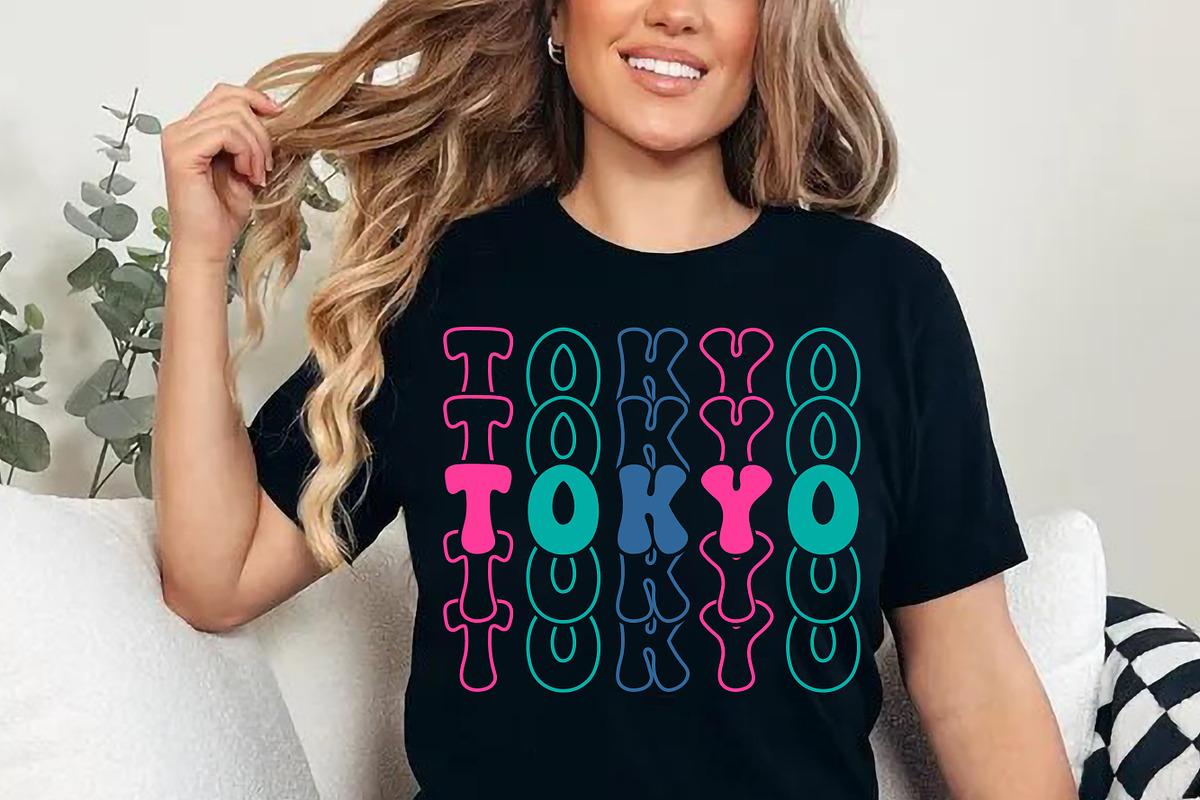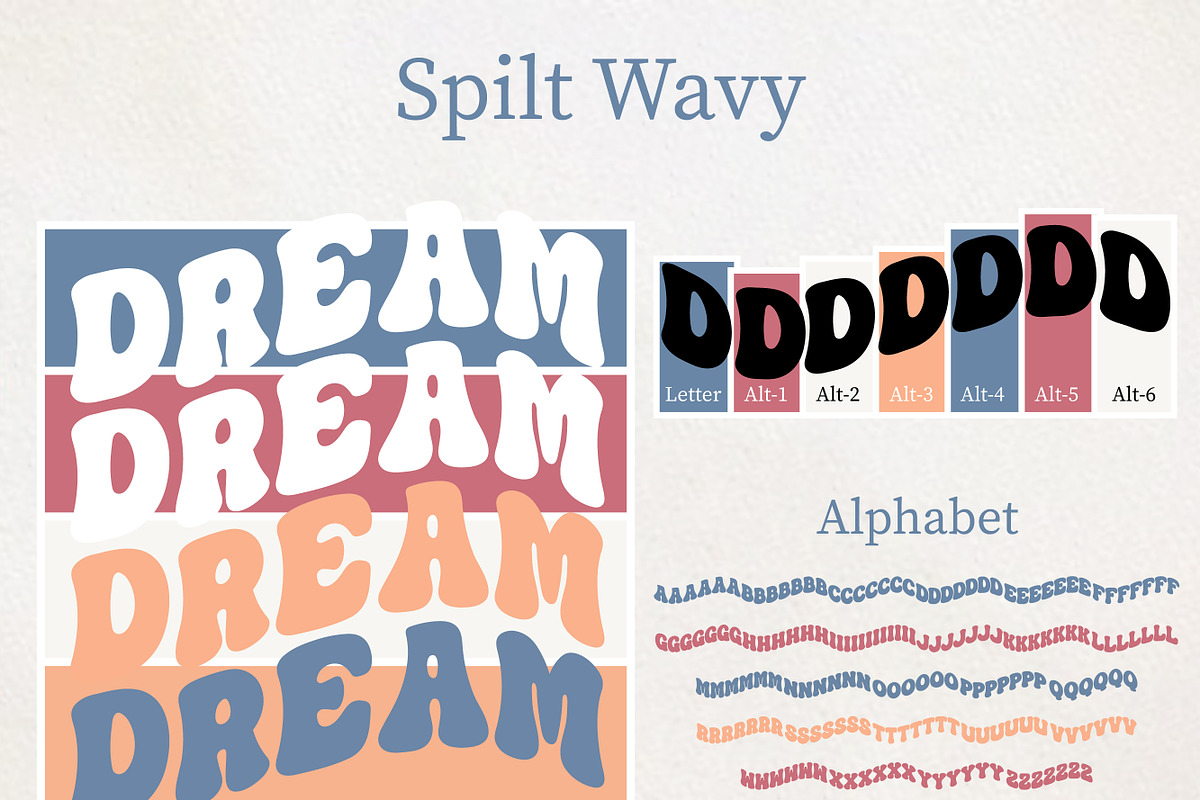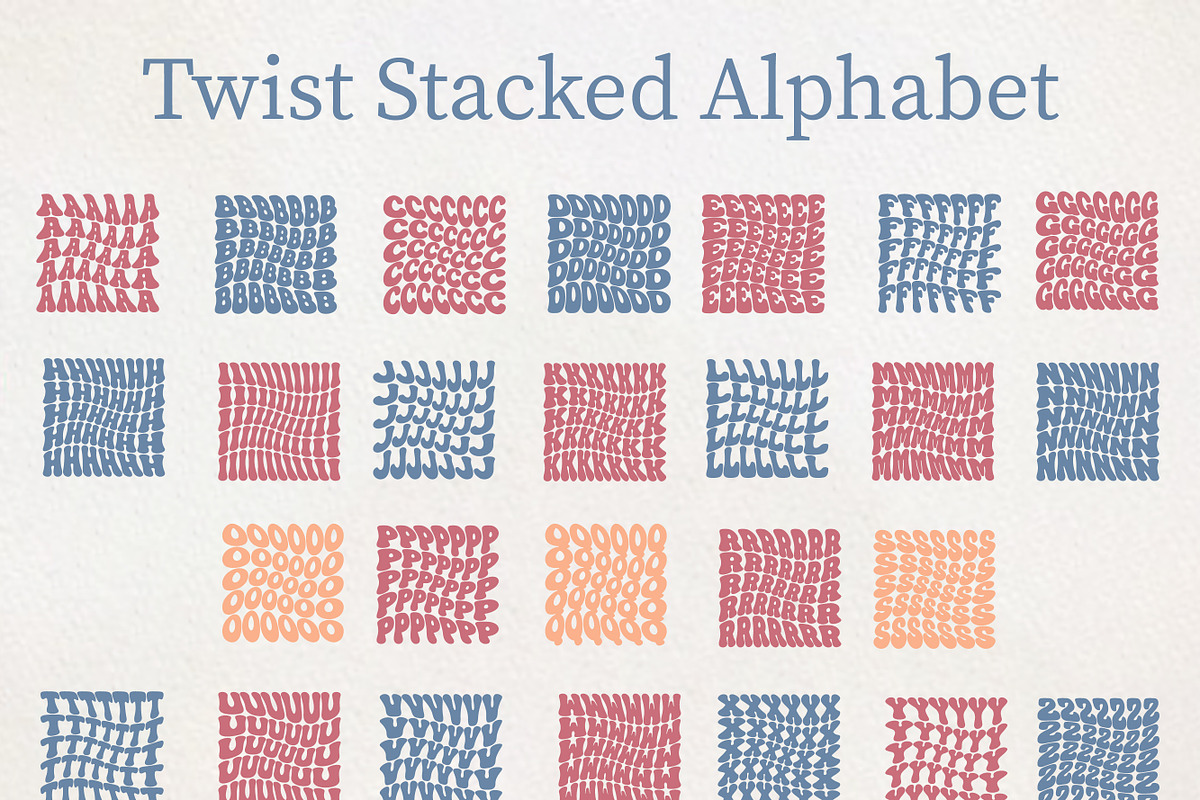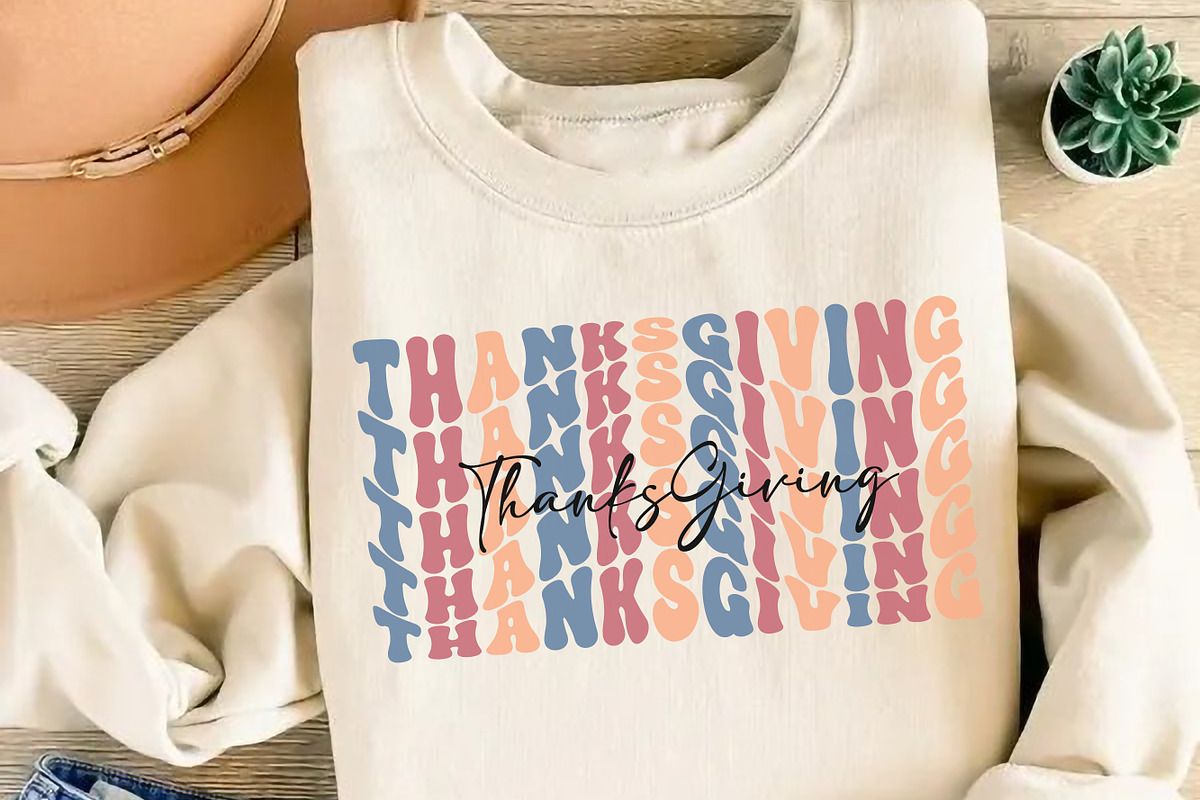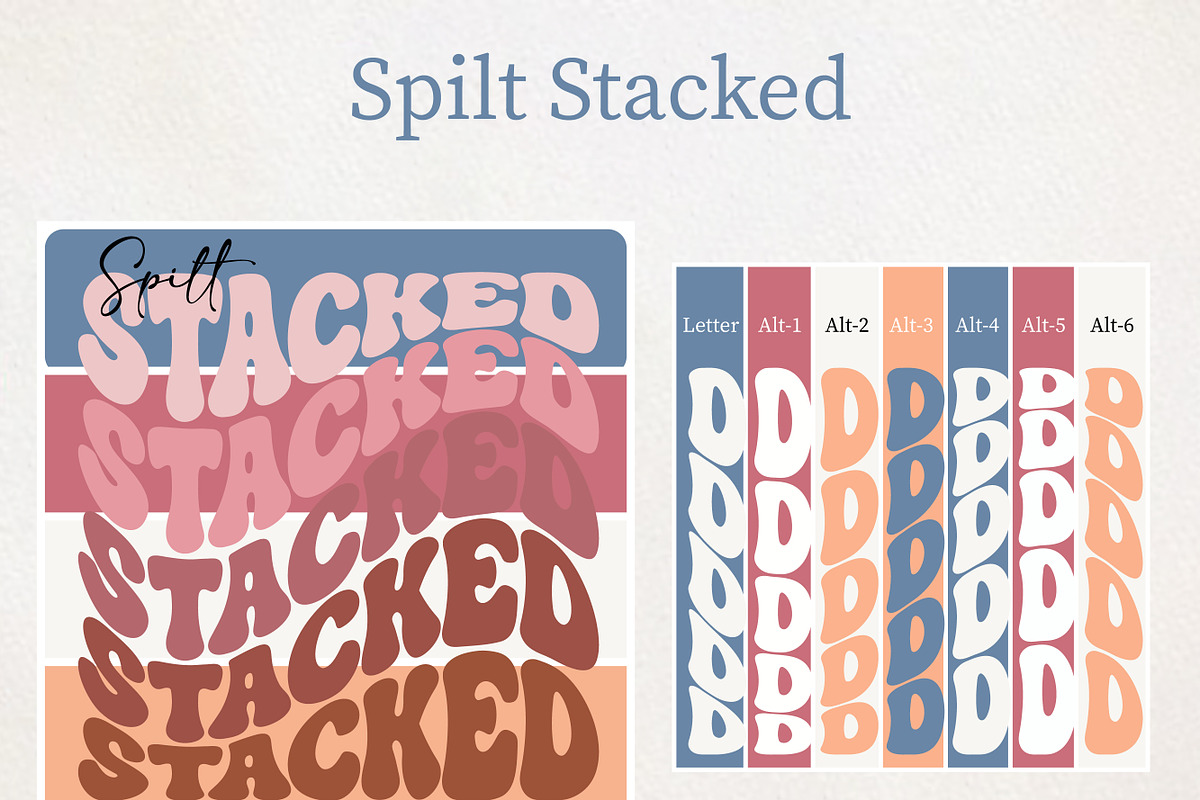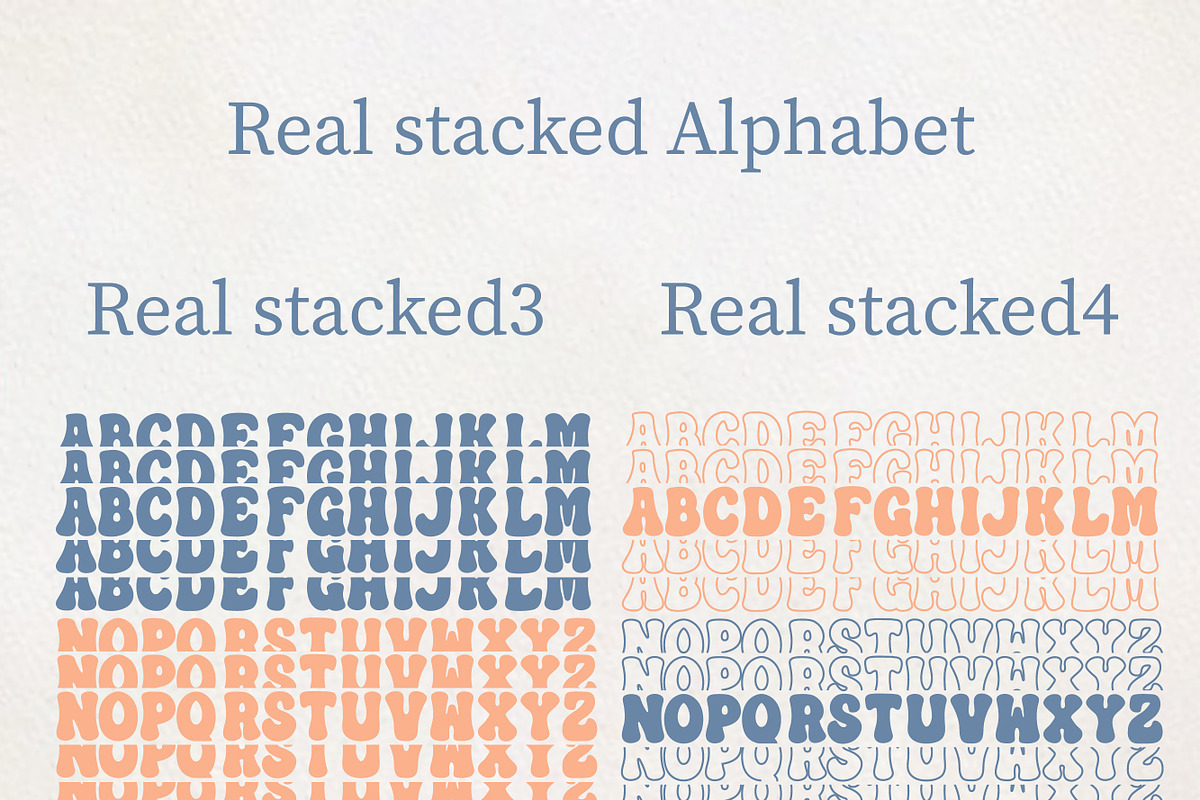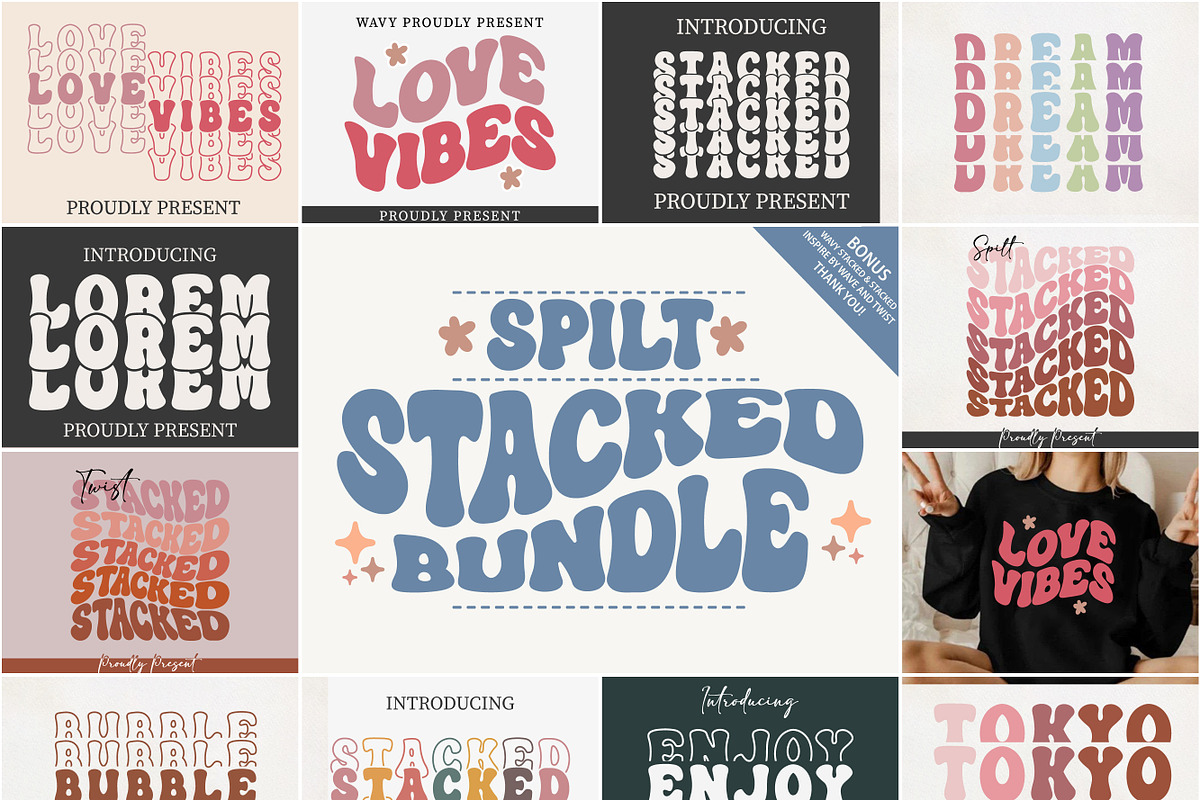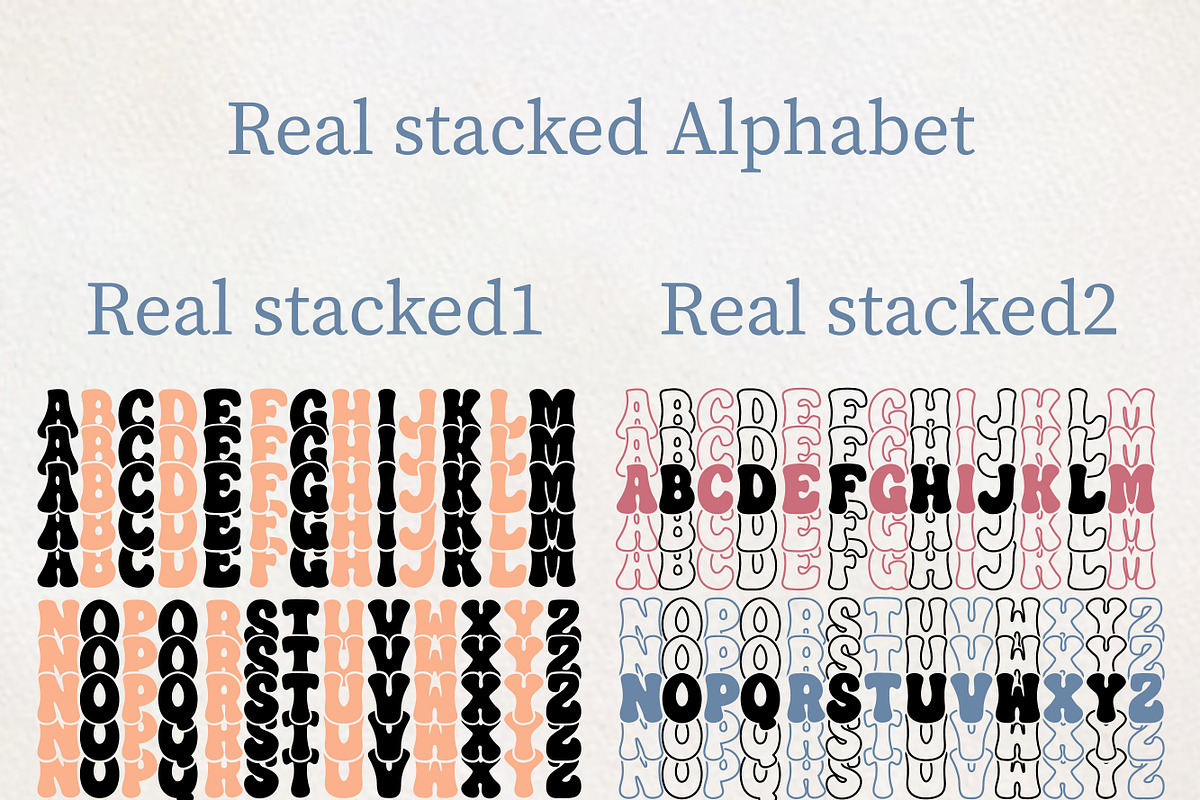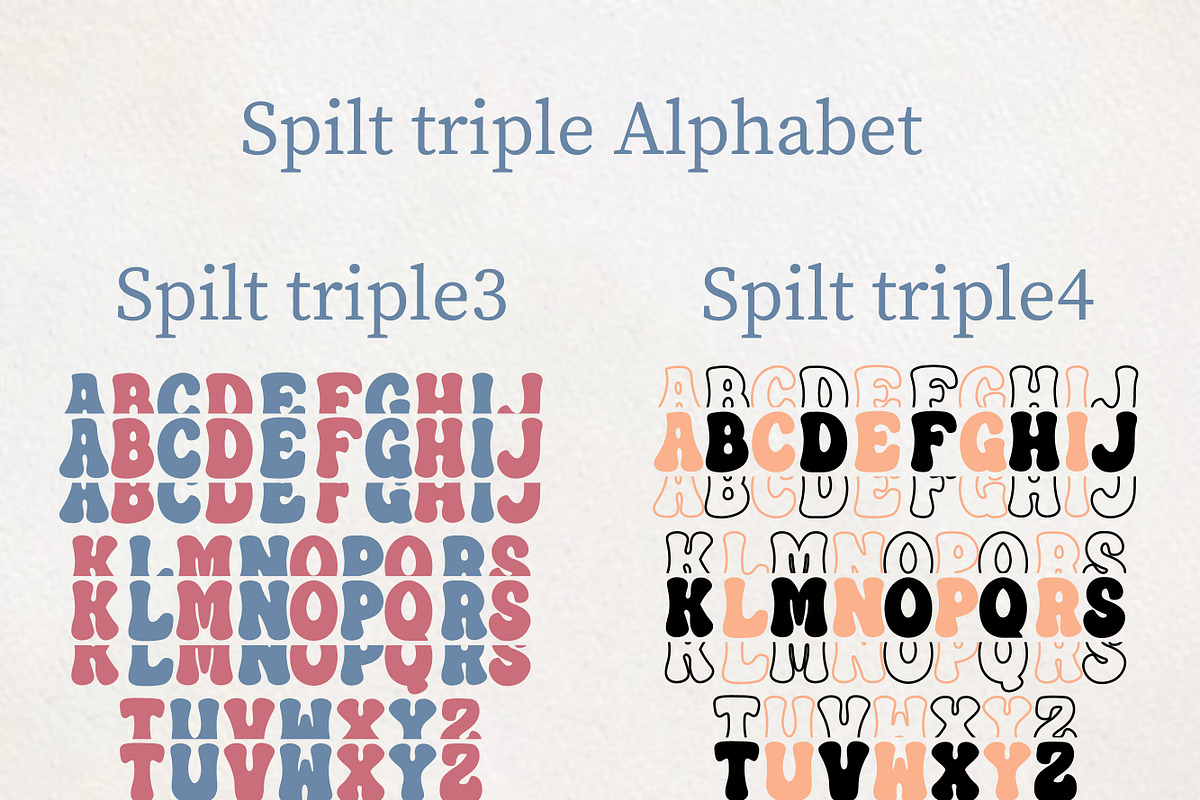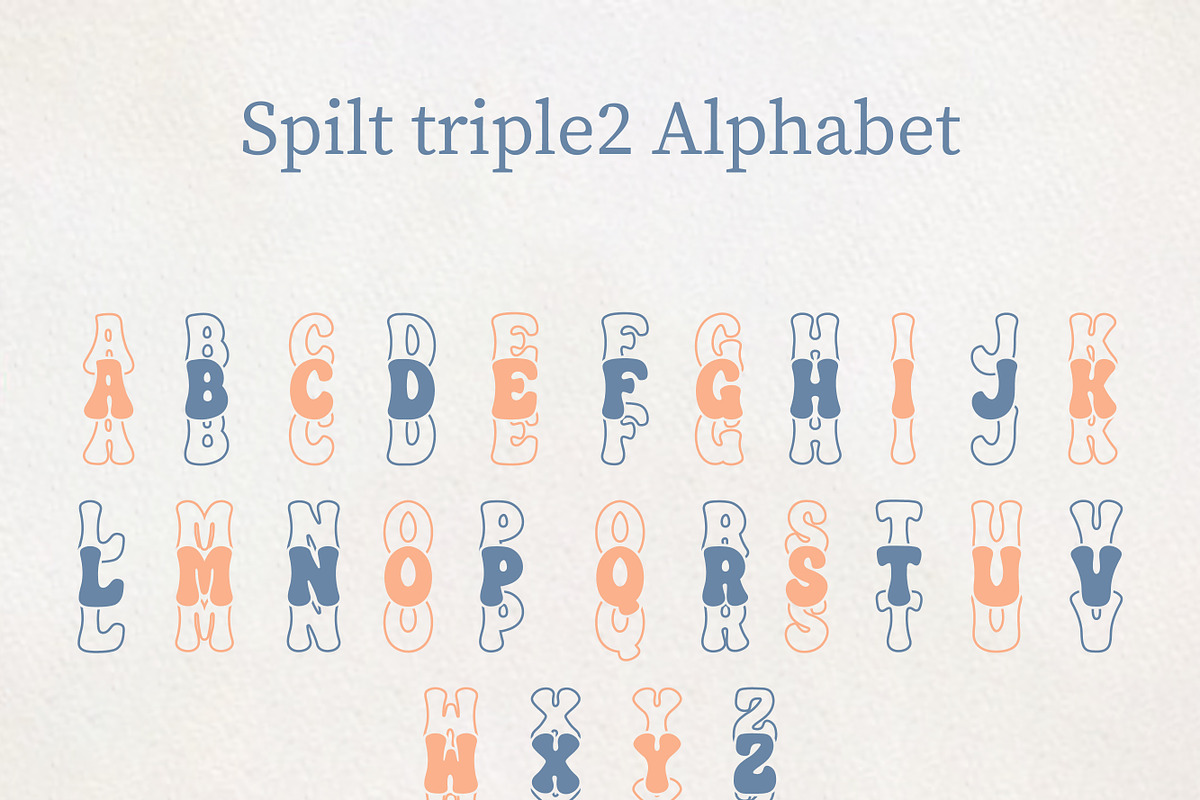
Spilt Stacked - Wave Bundle
Spilt Stacked Bundle is Groovy font style in stacked effect. Wavy is an incredibly cool display font. It's have alternate glyphe to help create trendy custom text designs. This font will be an amazing choice for lovely touch, Fun and perfect for everyone.